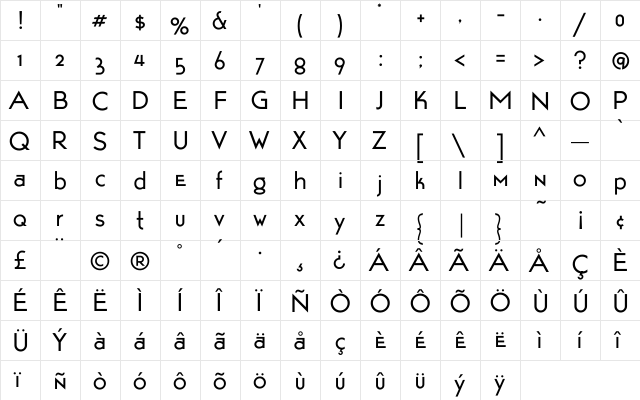
TaxiDriver Regular
Design Context for TaxiDriver Typeface
TaxiDriver is a composed and adaptable typeface that performs quietly and consistently across a wide range of design contexts.